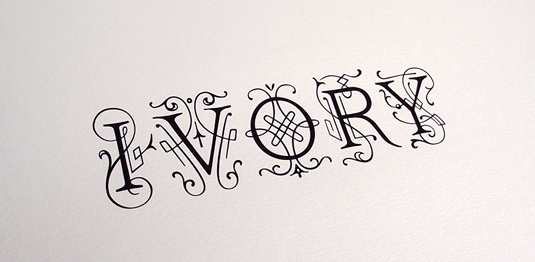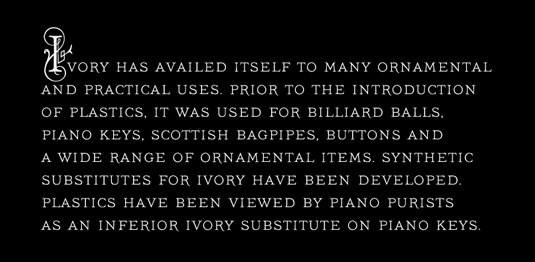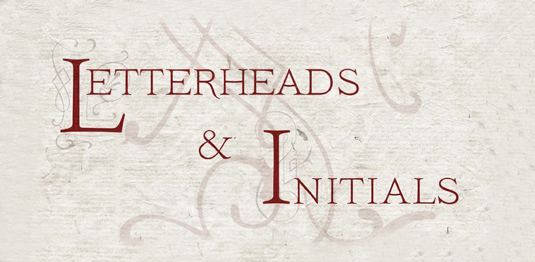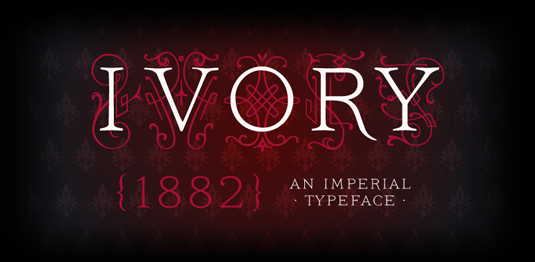
Font of the day: Ivory
Ivory from FaceType
Inspired by a typeface used in an illustrated compendium about pomology from 1882, Ivory was created by the team at FaceType. Available in three versions - headline, swashes and no swashes, this typeface is great for any vintage style design.